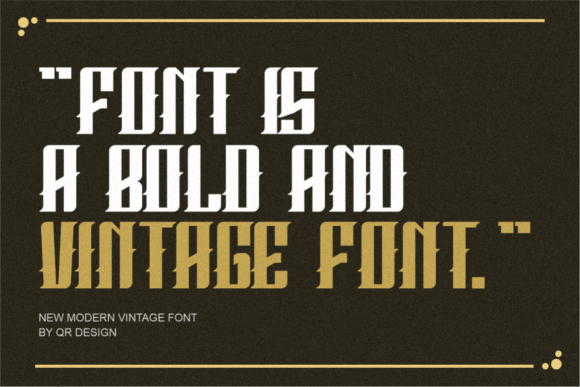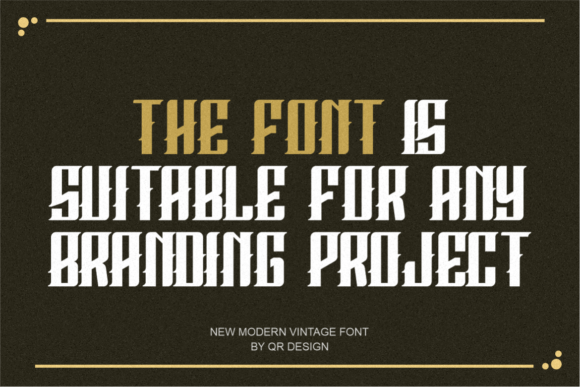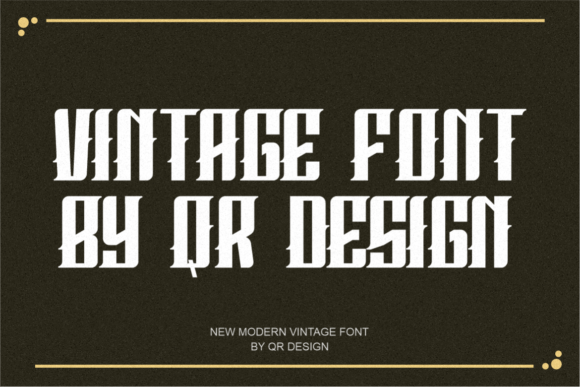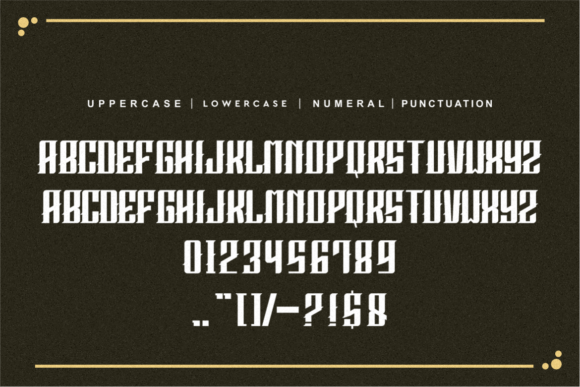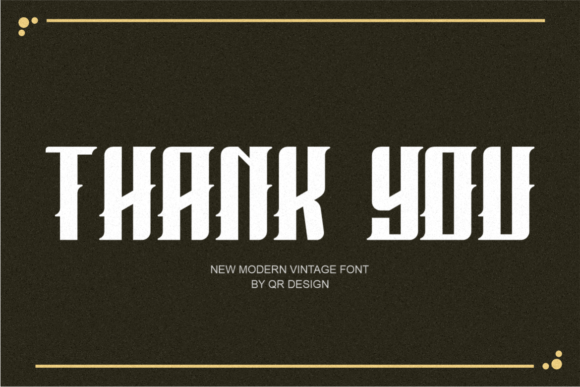
Introducing Deazu Geponick: The Ultimate Bold Blackletter Font
In the world of typography, a good font can make all the difference in creating a lasting impression. For designers and crafters looking for a bold and authentic all-caps blackletter font, Deazu Geponick is an excellent choice. This versatile font is suitable for a wide range of branding projects, from logos and t-shirt printing to e-sports and more.
What is Deazu Geponick?
Deazu Geponick is a bold and authentic all-caps blackletter font that exudes confidence and style. Its unique design features intricate details and a distinctive texture, making it perfect for creating eye-catching headlines, logos, and other visual elements. The font’s blackletter style gives it a sense of history and tradition, while its boldness ensures it stands out in any context.
Key Features of Deazu Geponick
- Bold and Authentic: Deazu Geponick is a true blackletter font with a bold and authentic look that commands attention.
- All-Caps: The font is designed specifically for all-caps text, making it perfect for headlines, titles, and other applications where a strong, bold font is needed.
- Highly Versatile: Deazu Geponick can be used in a wide range of contexts, from logos and branding to t-shirt printing, e-sports, and more.
- Unique Texture: The font features a distinctive texture that adds depth and character to any design.
Use Cases for Deazu Geponick
Deazu Geponick is an incredibly versatile font that can be used in a variety of contexts. Here are some ideas to get you started:
- Logo Design: Create a bold and memorable logo with Deazu Geponick that will help your brand stand out.
- T-Shirt Printing: Use Deazu Geponick to create eye-catching designs for t-shirts, hoodies, and other apparel.
- E-Sports: The font’s bold and modern look makes it perfect for e-sports branding, including team logos, jerseys, and marketing materials.
- Headlines and Titles: Use Deazu Geponick to create bold and attention-grabbing headlines and titles for your website, blog, or social media channels.
Why Choose Deazu Geponick?
With so many fonts available, why choose Deazu Geponick? Here are just a few reasons:
- Unique Style: Deazu Geponick has a distinctive style that sets it apart from other fonts.
- High-Quality Design: The font is designed with precision and attention to detail, ensuring a high-quality look and feel.
- Versatile: The font can be used in a wide range of contexts, making it a great addition to any design toolkit.
Deazu Geponick is a bold and authentic all-caps blackletter font that is perfect for designers and crafters looking to add a touch of style and sophistication to their projects. With its unique texture, bold design, and versatility, Deazu Geponick is an excellent choice for a wide range of branding projects. Whether you’re creating a logo, t-shirt design, or e-sports branding, Deazu Geponick is sure to make a lasting impression.